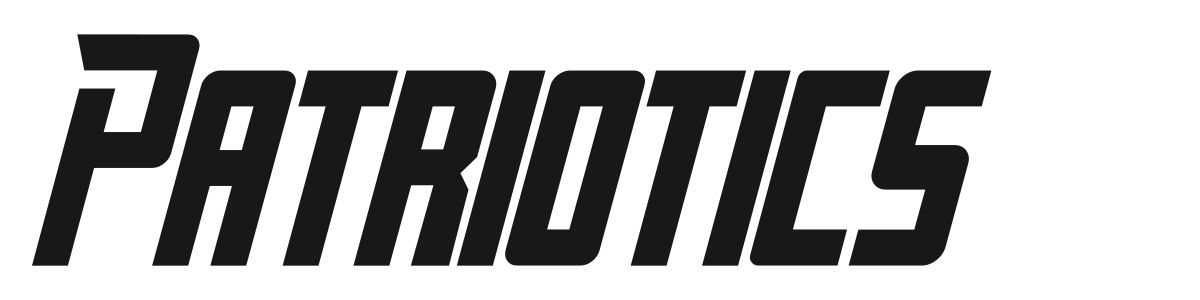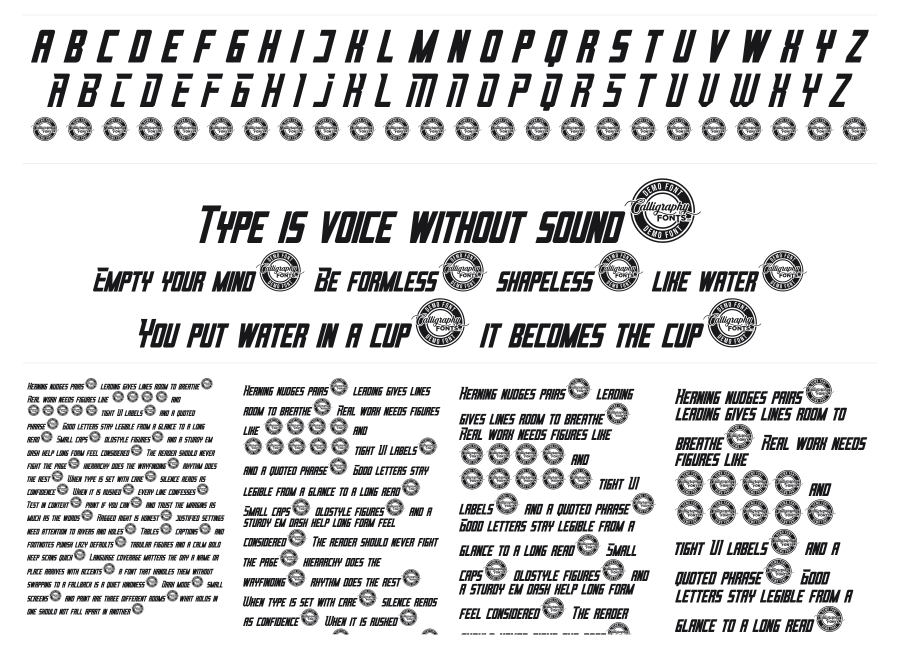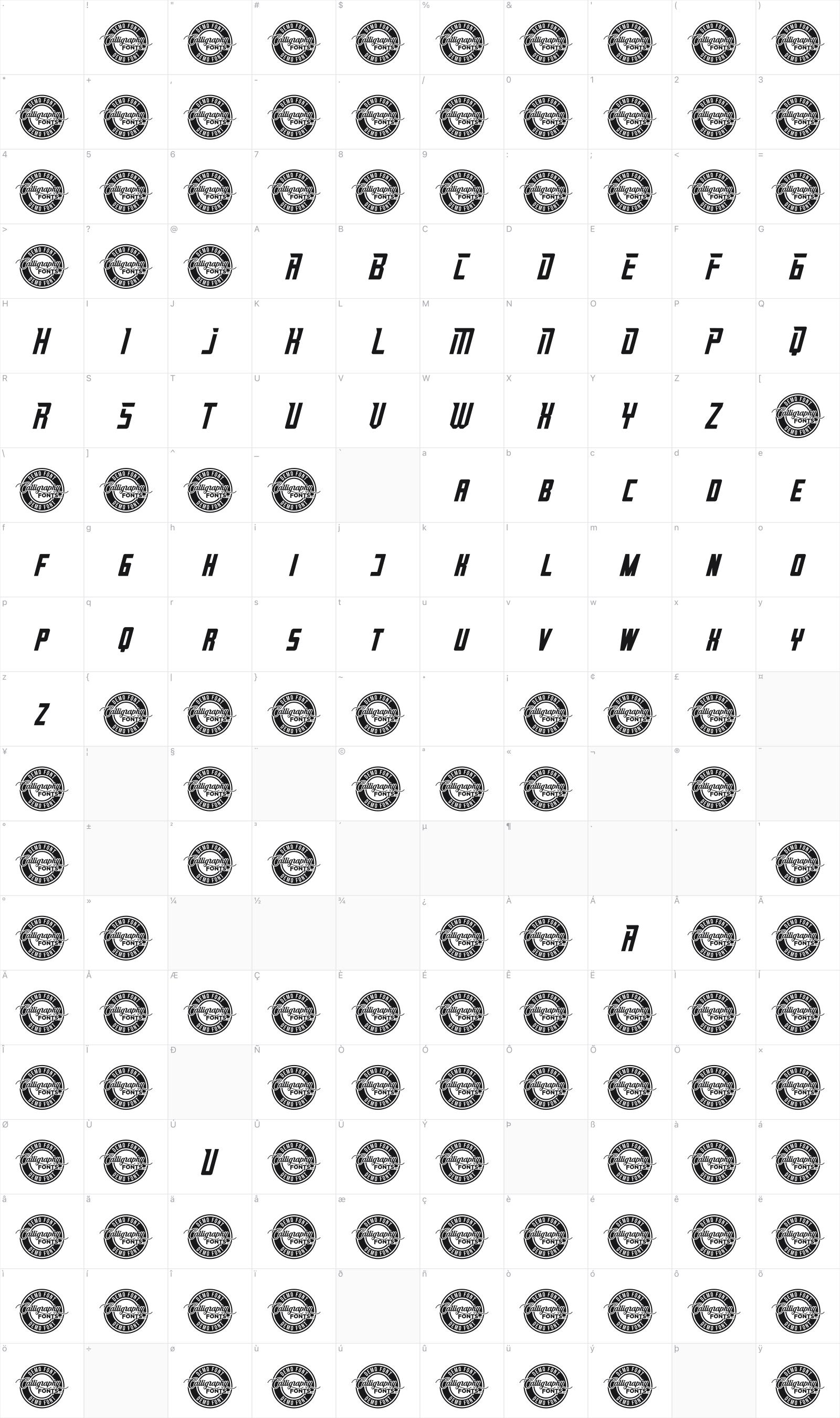
Patriotics
Patriotics is a heavy condensed italic sans with sharp angular cuts and a hard military edge. The bold forward slant and notched terminals channel mid-century American patriotic and sports typography into something punchy and modern. It hits hard at large sizes on posters, jerseys, and game titles.